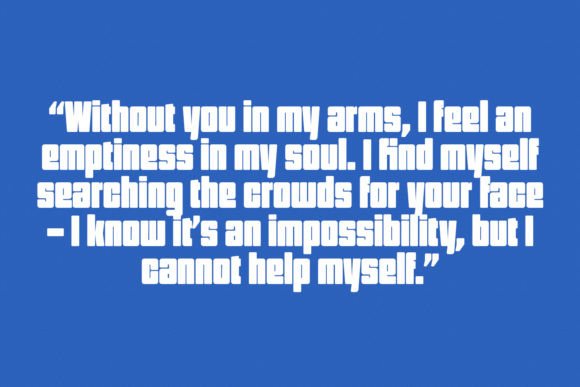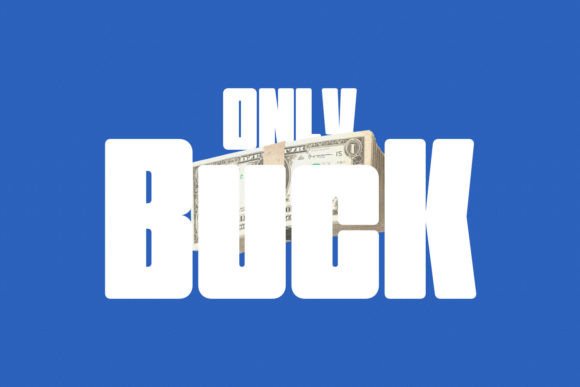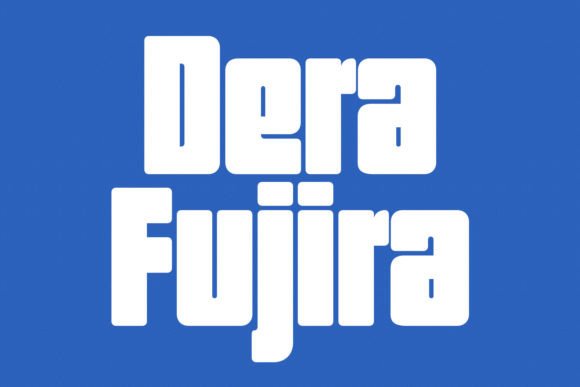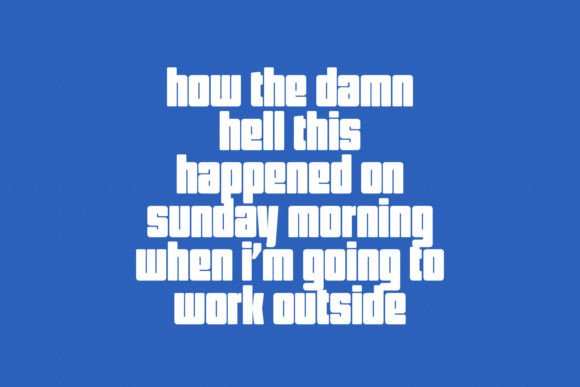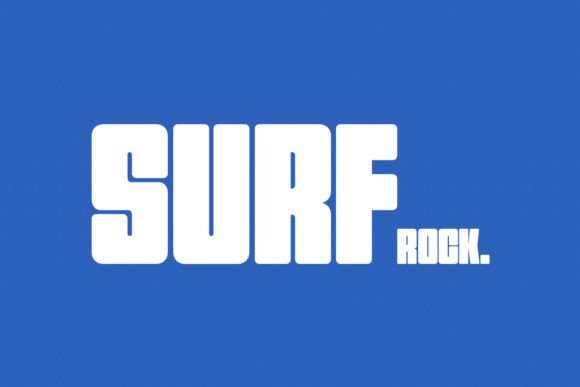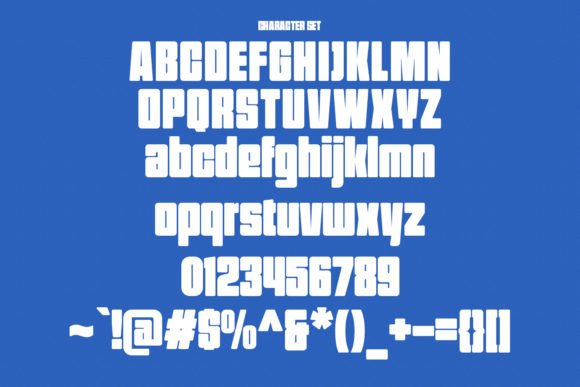
Introduction to Chucka Font
Have you ever stared at a blank page, feeling the pressure of a looming creative deadline, only to have a burst of inspiration strike when you least expect it? For many designers, this is the moment when ideas start flowing and projects begin to take shape. And when that spark of creativity hits, you need a design resource that can help bring your vision to life. Enter the Chucka Font – a modern and stylish display font that’s sure to elevate your next creative project.
With its high-quality, transparent background and versatility, the Chucka Font is the perfect addition to any design arsenal. Whether you’re working on a letterhead, title, or stationery, this font’s unique look is sure to make a statement. And the best part? You can download it for free, making it an accessible design resource for creatives of all levels.
For designers, the Chucka Font is a valuable asset that can help take their work to the next level. Its modern aesthetic and flexibility make it an ideal choice for a wide range of creative projects, from editorial design to branding and beyond. So why wait? Download the Chucka Font today and see how it can help bring your designs to life.
Key Features of Chucka Font
- High-quality, professional design suitable for various creative projects.
- Transparent background for easy customization and integration into different designs.
- Perfect for use in graphic design, digital art, and other creative projects where a unique, eye-catching font is needed.
Honest Review: Chucka Font
I recently had the chance to work with the Chucka Font, and I’m excited to share my thoughts on this design resource.
What works well: ✨ The high-quality design of the font is immediately noticeable. The bold, playful strokes give it a fun and energetic feel that’s perfect for creative projects. The transparent background also makes it easy to customize and layer over other design elements.
The free download was a great bonus, and the font’s versatility made it easy to integrate into various design contexts. I particularly enjoyed using it for social media graphics and promotional materials.
However, I did encounter a few limitations: ⚠️ The font’s limited character set can be a drawback for more extensive creative projects. Additionally, the font’s bold style may not be suitable for all design applications, particularly those requiring a more subtle or formal tone.
Overall, I’m impressed with the Chucka Font, and I’d recommend it for designers working on fun and playful projects. With a little creativity and experimentation, it can be a valuable addition to any design resource library.
- High-quality, bold design
- Perfect for creative projects, social media graphics, and promotional materials
Introduction to Chucka Font
Chucka Font is a free, high-quality design resource perfect for creative projects. This versatile font features a transparent background, making it easy to use in various applications.
Tips for Getting the Most Out of Chucka Font
To get the most out of Chucka Font, use it in combination with other design elements, such as graphics and images. Experiment with different font sizes and styles to create a visually appealing design. You can also use Chucka Font in conjunction with other design resources to create a unique and creative project.
Chucka Font is ideal for various creative projects, including social media graphics, blog posts, and presentations. Its high-quality design and transparent background make it a popular choice for designers and non-designers alike.